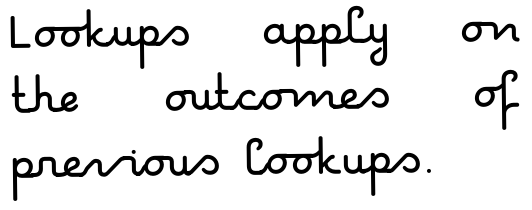
Font name: | Otfpoc |
Author: | Philippe Cochy |
Note by Philippe Cochy | |
The purpose of this font is to serve as support to the web page http://pecita.net/otfpoc/ This page explains (in French & in English) the use of contextual alternates within a Latin typeface with glyphs connected. |